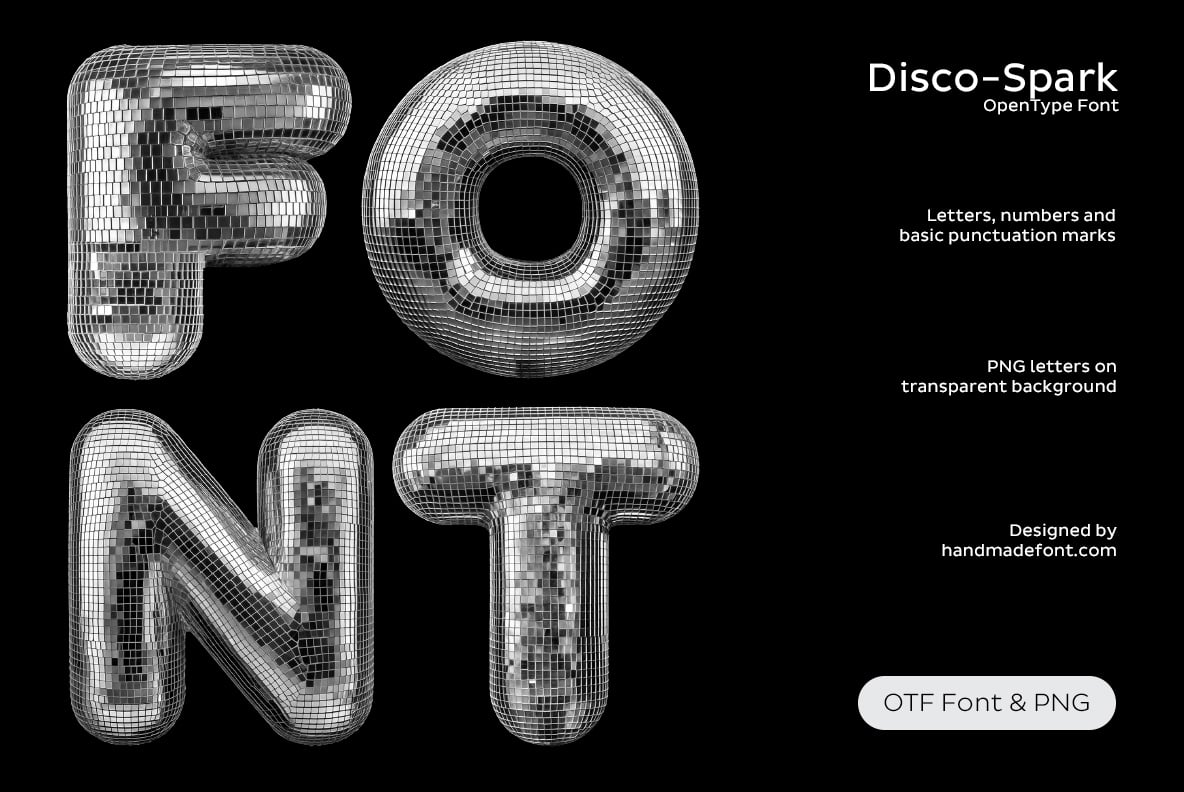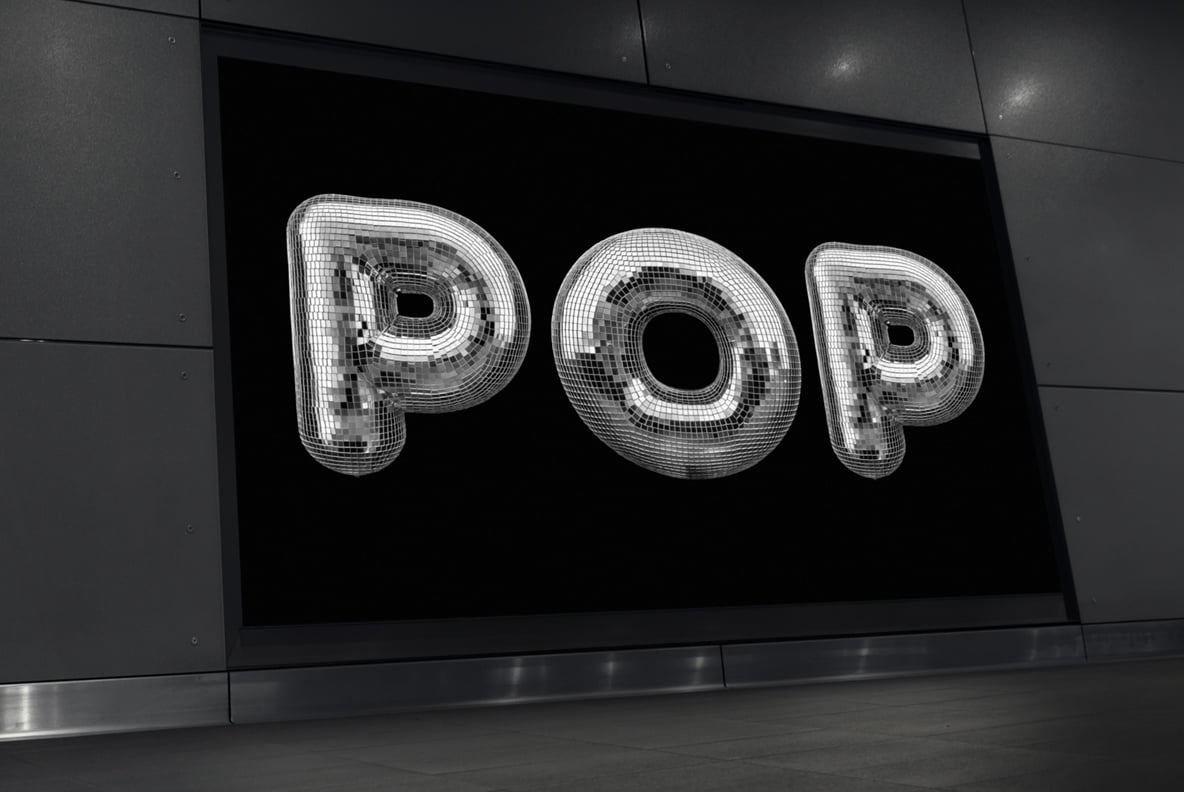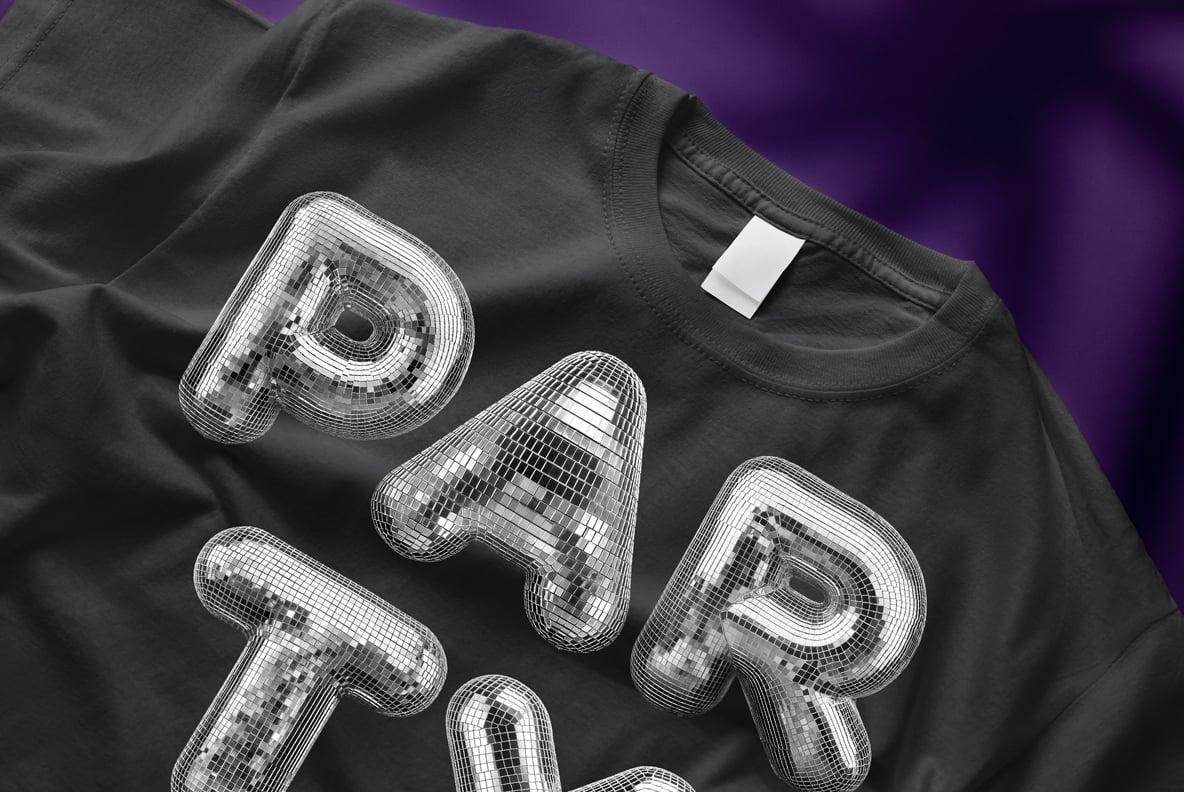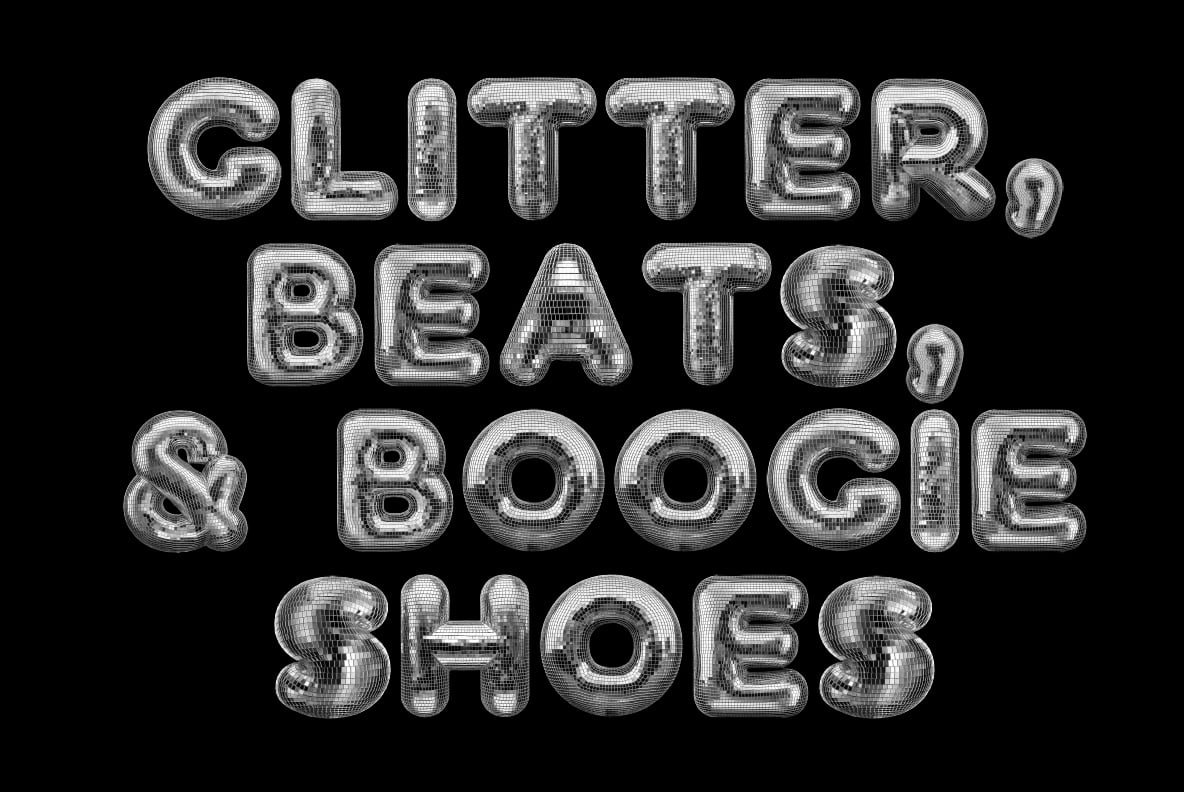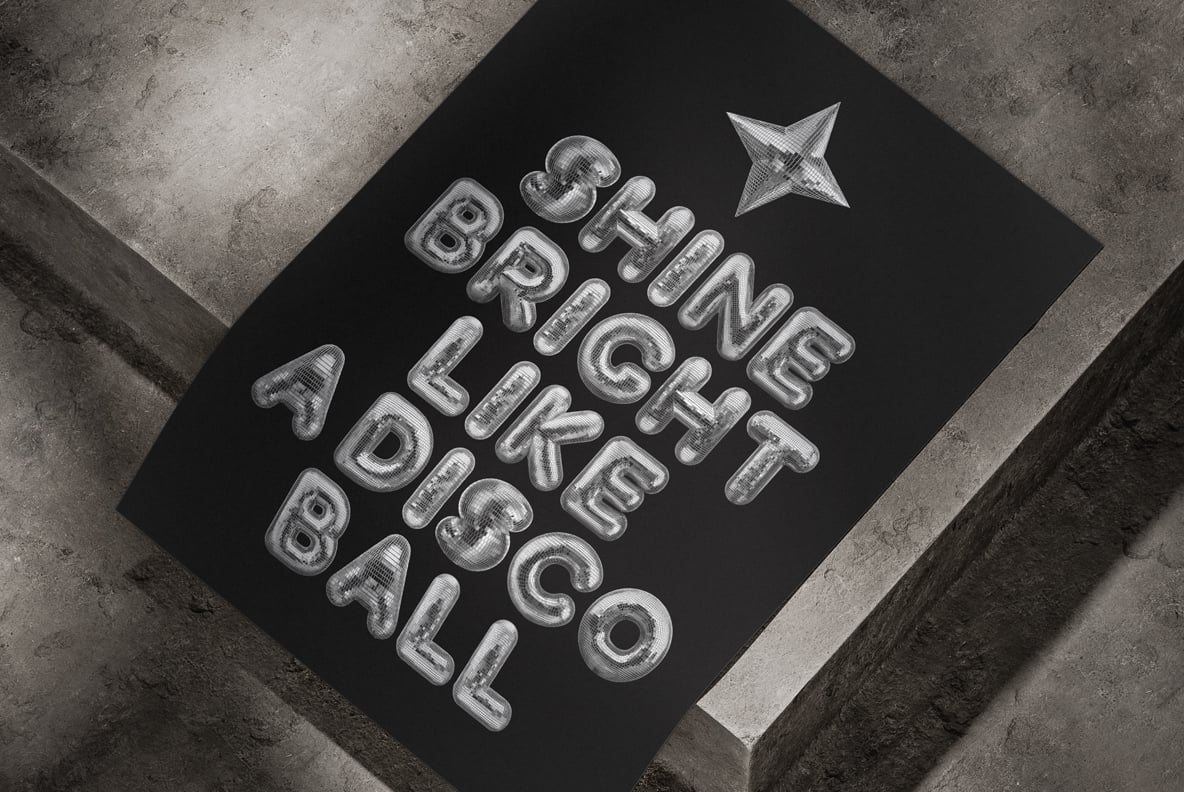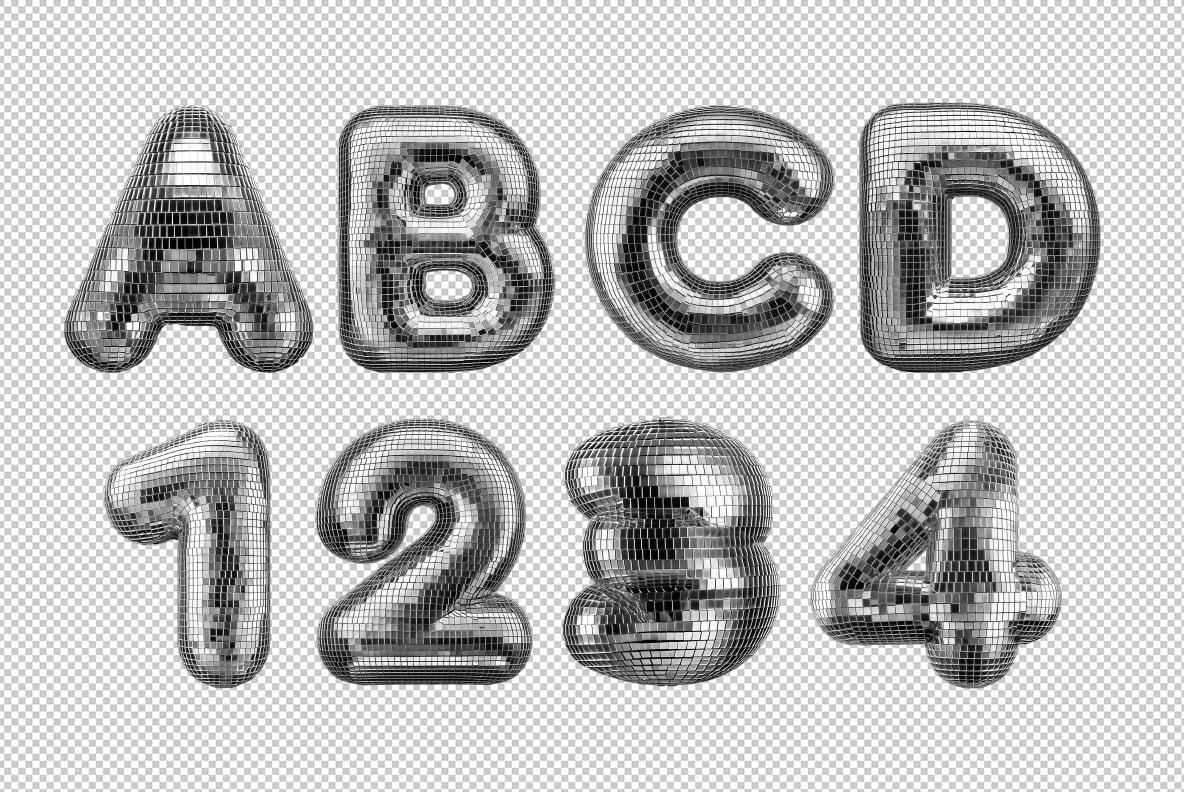
Disco-Spark Font
Introducing Disco-Spark Font — the typographic equivalent of a glitter cannon at Studio 54. Every letter looks like it moonwalked straight out of a mirror ball, kissed by sequins, and blessed by Donna Summer herself. This font doesn’t whisper, it shimmies. It’s not here to be read quietly — it’s here to dance across the page, spin under a spotlight, and yell “YEAH, BABY!” in falsetto. Perfect for party posters, fever dreams, or anything that needs more sparkle per pixel. Warning: may cause sudden urge to roller skate, grow chest hair, or wear sunglasses indoors. Disco isn’t dead. It’s bold.
A high definition OpenType Font. Contains uppercase characters, numerals and basic punctuation. (Draw height roughly 800 pixels). All letters and glyphs that comprises this font you can see on the preview.
Others : ! ? - . ' $ € % & # @